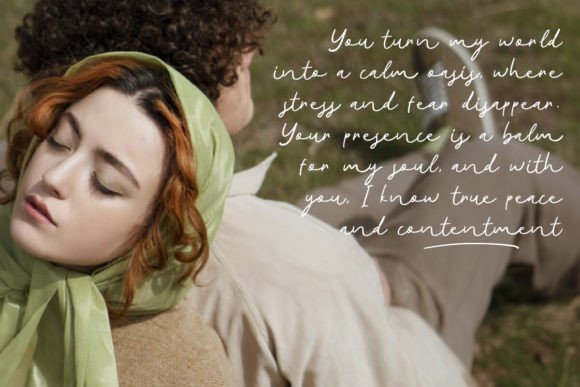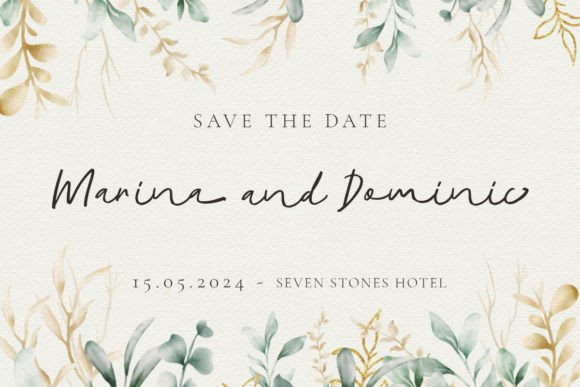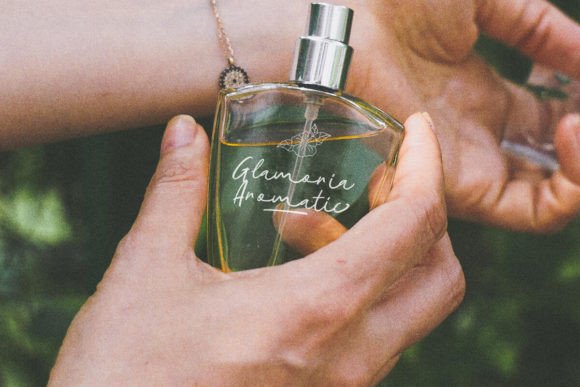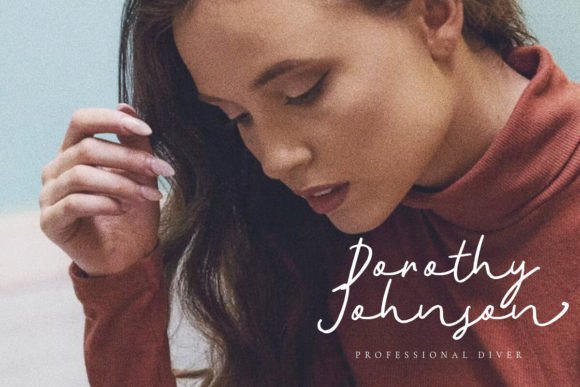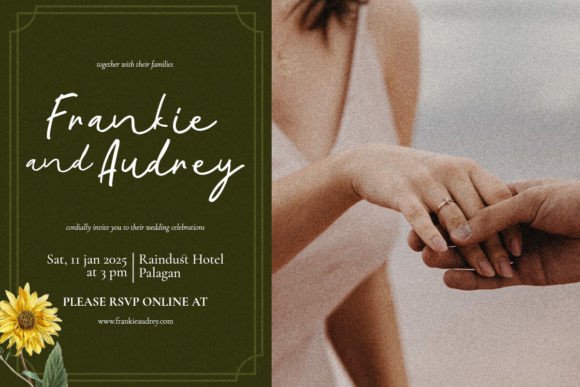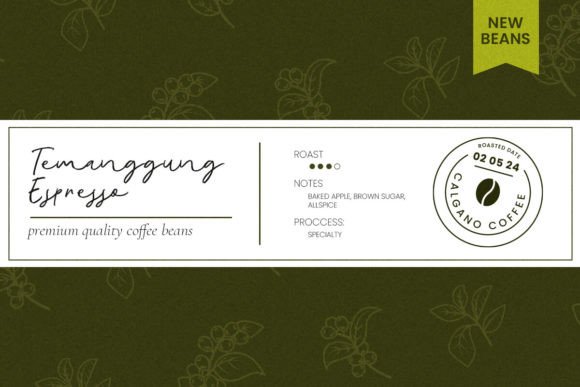
Greenfield Font: The Bouncy Handwritten Script That’s Stealing Hearts
I’ll never forget the moment I stumbled upon the Greenfield font. I was working on a wedding invitation project for a client, and I was struggling to find the perfect font that would capture the playful yet elegant vibe of the couple’s special day. That’s when I discovered Greenfield – a bouncy handwritten script that instantly gave me the feel I was looking for.
Greenfield is here to make a statement! This casual, handwritten script font gives a deep impression with its natural strokes, adding a touch of grace to any design project. Whether you’re working on wedding invitations, brand logos, social media captions, or anything in between, Greenfield is the perfect choice.
- ✅ Unique and eye-catching: Greenfield’s bouncy strokes and natural feel make it stand out from other script fonts.
- ✅ Versatile: Use it for formal or informal designs, from wedding invites to social media posts.
- ✅ Elegant yet playful: Greenfield strikes the perfect balance between sophistication and whimsy.
- ⚠️ Legibility at small sizes: Greenfield can get a bit tricky to read at very small font sizes, so be sure to test it out before finalizing your design.
- ⚠️ Limited use in body text: While Greenfield is stunning as a headline or title font, it might not be the best choice for longer blocks of text.
The Story Behind Greenfield
Greenfield was designed with the intention of capturing the carefree, natural feel of handwritten script. The designer wanted to create a font that would evoke the feeling of a personal, handwritten letter or a playful note. With its bouncy strokes and elegant feel, Greenfield is the perfect result of that vision.
Q: Is Greenfield suitable for body text?
A: While Greenfield is stunning as a headline or title font, it might not be the best choice for longer blocks of text. Consider using a more legible font for body text.